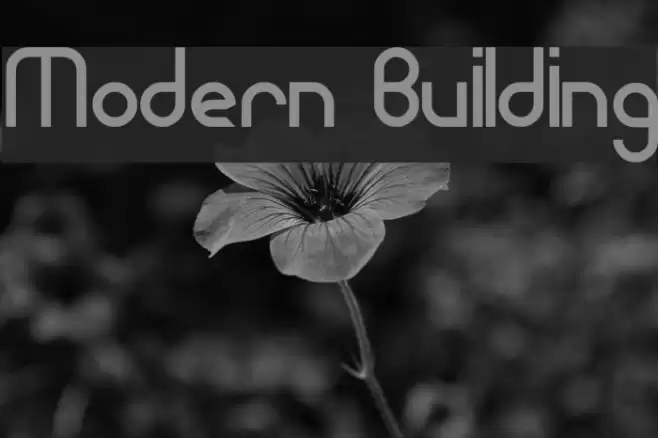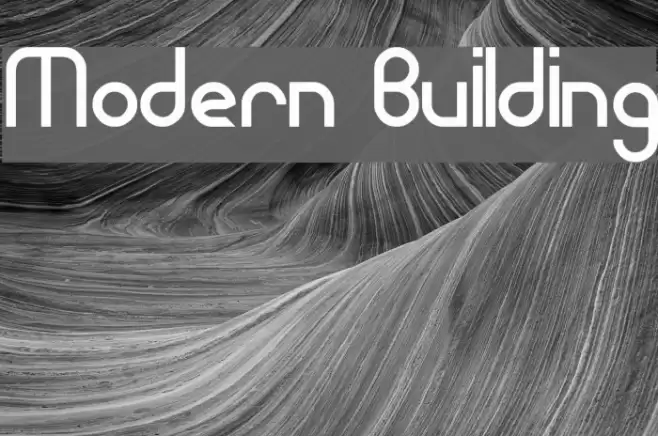
Modern Building Font
Modern Building Description
This font features a modern and geometric design with a unique blend of curves and straight lines. The uppercase letters are bold and structured, with a consistent height and width that creates a uniform appearance. The lowercase letters maintain the geometric style, offering a harmonious balance between the two cases. Numbers are clear and distinct, following the same design principles. Special characters are creatively integrated, maintaining the overall aesthetic. The font's clean lines and contemporary feel make it suitable for a variety of design projects.
A modern, geometric font with bold, structured characters from Uncategorized fonts.
- Proposed Projects: Ideal for branding, advertising, posters, and digital media where a modern and clean look is desired.